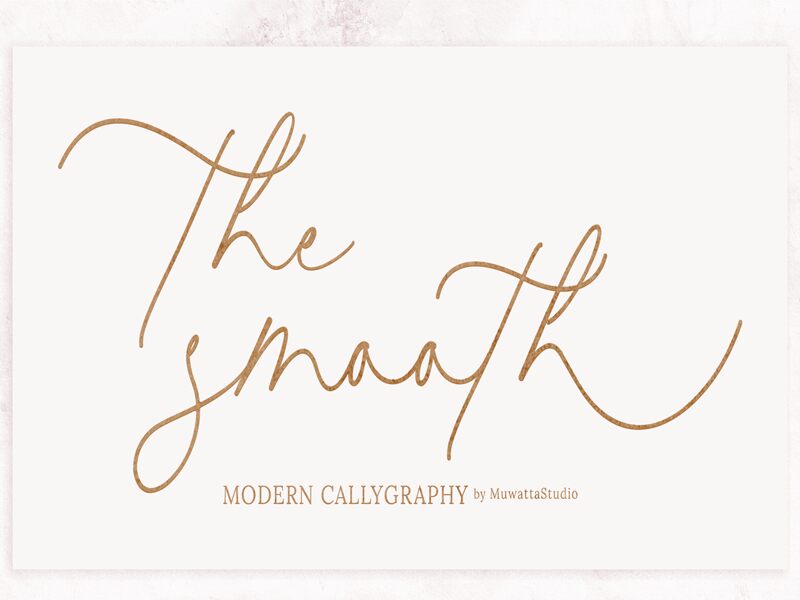
The Smooth, designed by Muwatta Studio, is a stunning calligraphy font with an extra-light weight. Its delicate strokes and elegant curves make it ideal for projects that require a touch of sophistication and refinement. Whether you're designing wedding invitations, creating logos or crafting social media graphics, The Smooth's graceful script will add a touch of glamour to any project. With its sweeping letterforms and exquisite detailing, this semi-bold font is perfect for branding luxury products such as perfumes or jewelry. If you're looking to elevate your design work with a font that exudes elegance and class, look no further than The Smooth.
Muwatta Studio
The Smooth